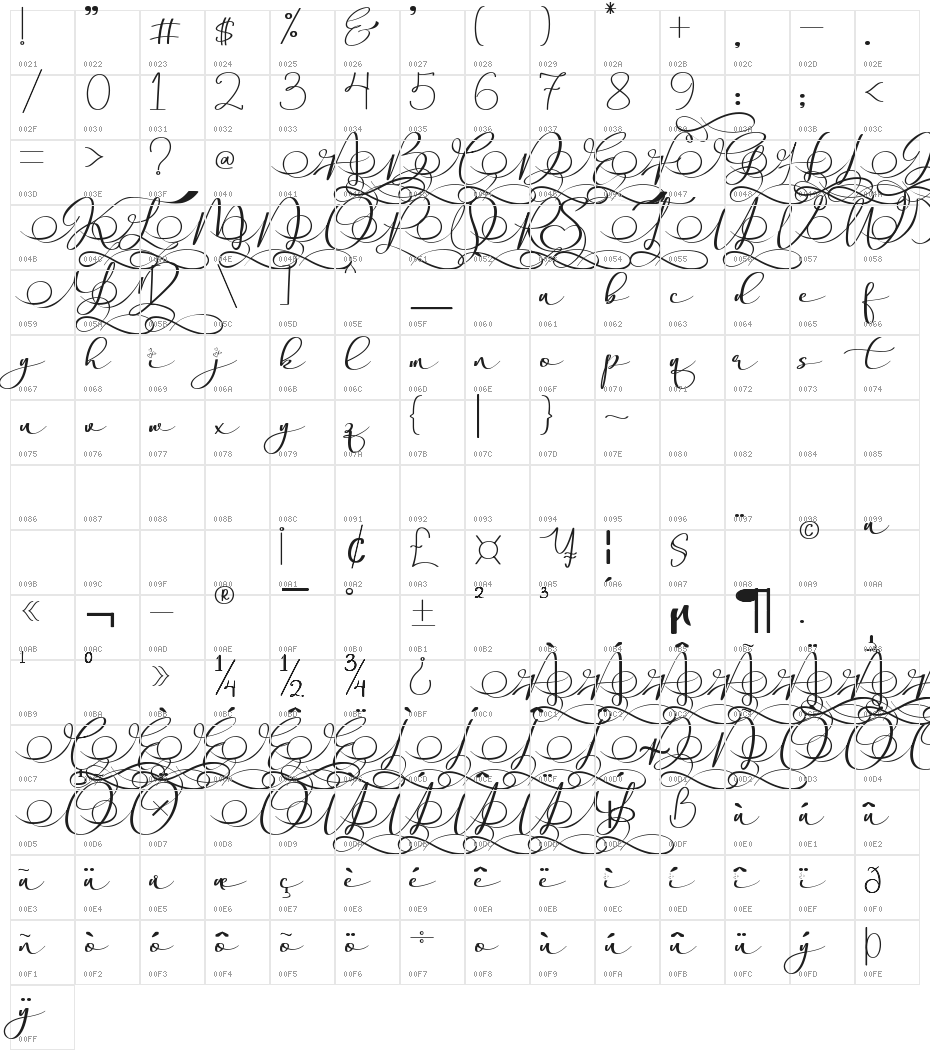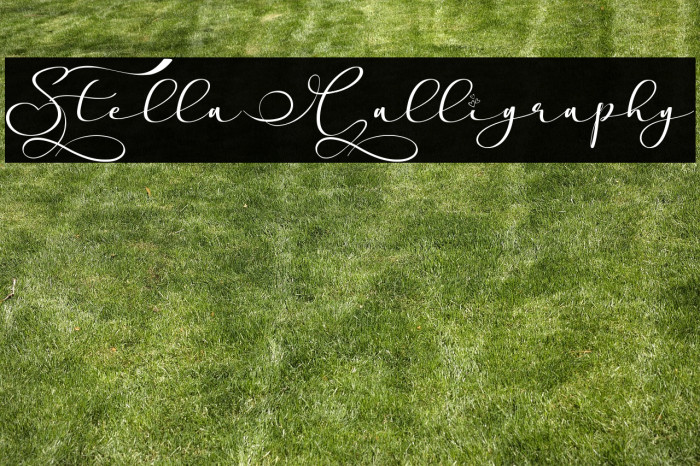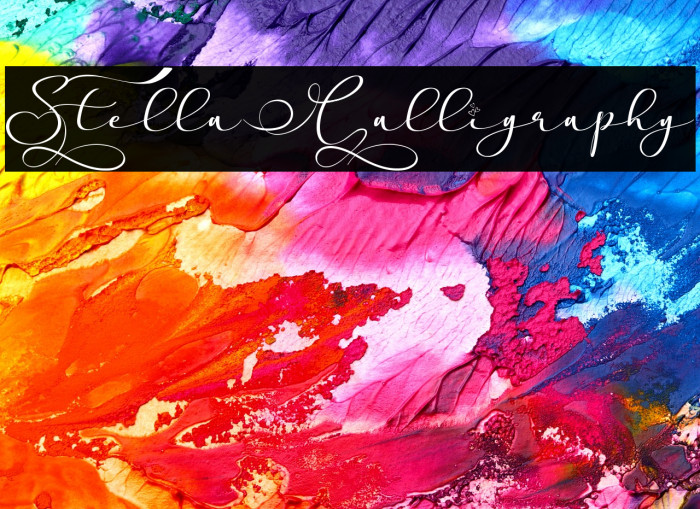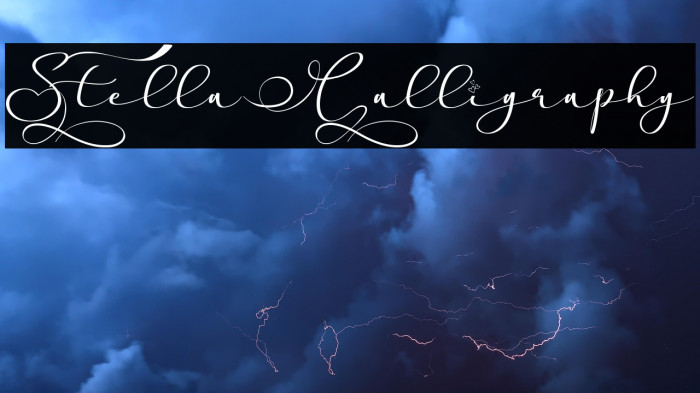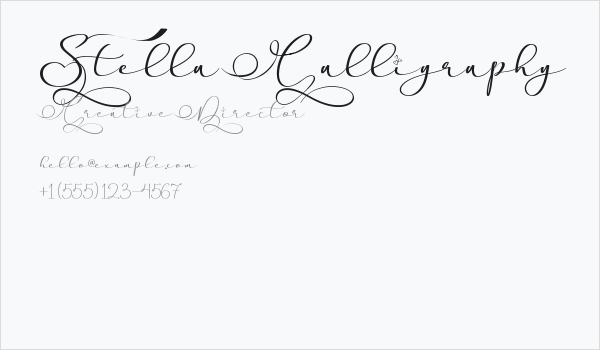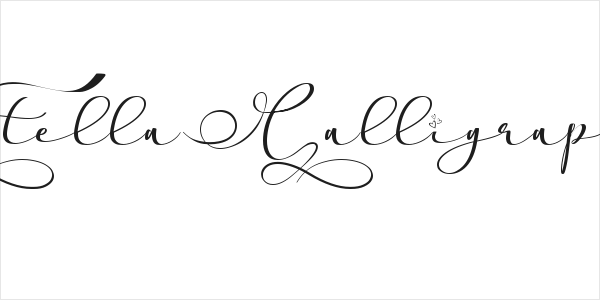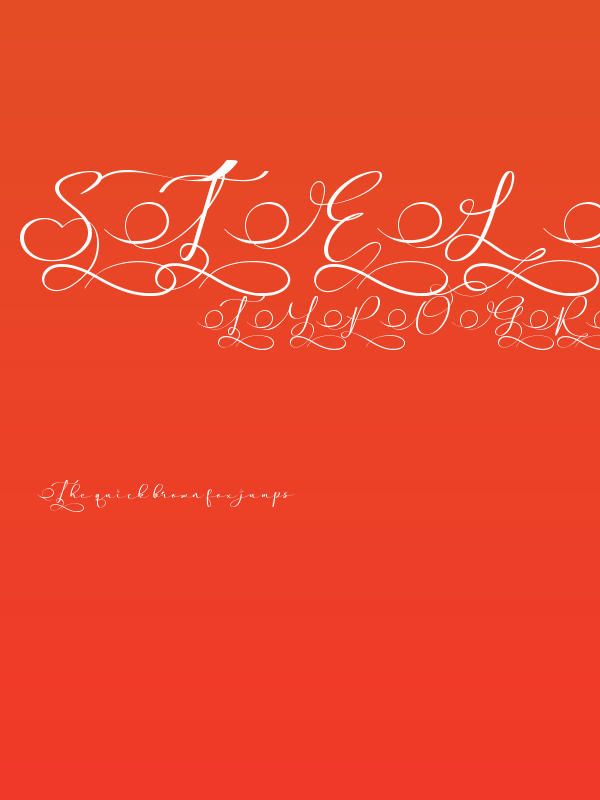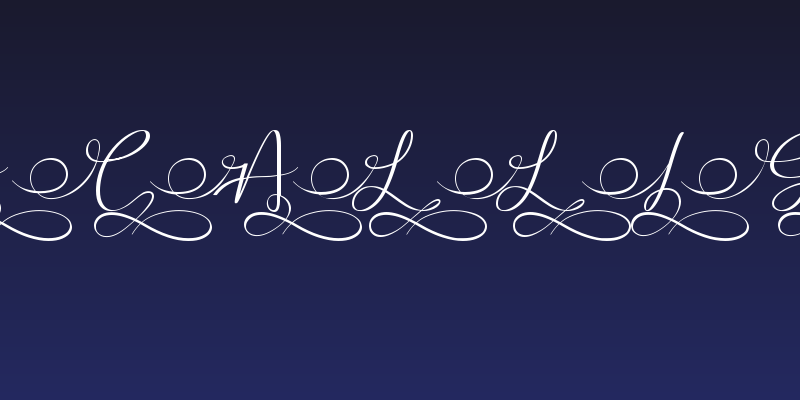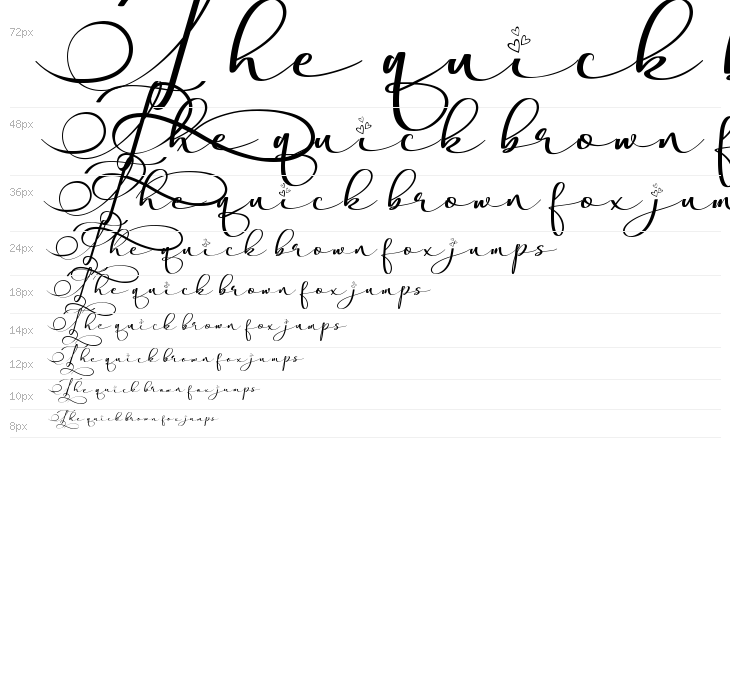
Stella Calligraphy Font
Stella Calligraphy Description
This elegant script font features a flowing, calligraphic style with intricate swashes and flourishes. The uppercase letters are adorned with elaborate loops and curves, creating a sense of sophistication and grace. The lowercase letters maintain a smooth, connected flow, enhancing readability while retaining an artistic flair. The numerals are consistent with the overall style, offering a balanced and harmonious appearance. Special characters are thoughtfully designed, complementing the font's aesthetic. This font is perfect for projects that require a touch of elegance and refinement.
| Proposed Projects | Ideal for wedding invitations, elegant branding, greeting cards, and luxury packaging. |